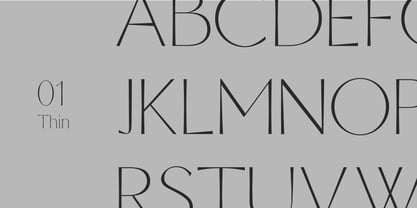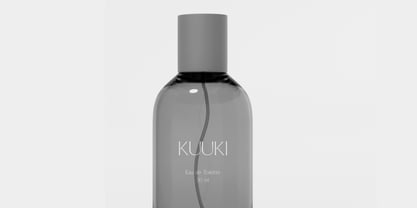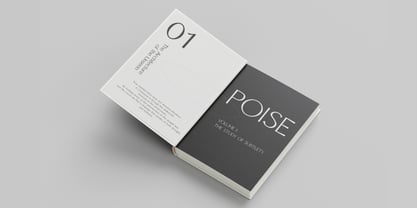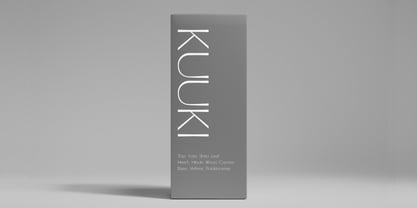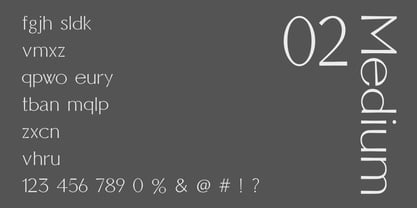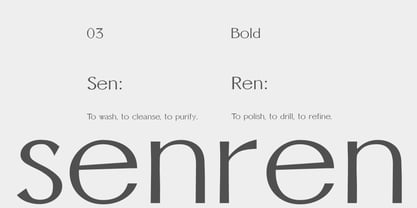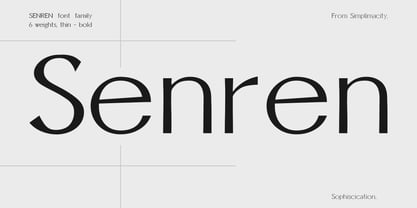
Senren
by KU Type
The Senren Font Family was designed by Yui Haynes and published by KU Type. Senren contains 6 styles and family package options. More about this family
Senren is a sophisticated and minimal typeface that expertly balances clarity with quiet elegance. Designed with a refined structure and carefully controlled proportions, it provides a calm yet confident presence in both print and digital applications. Rooted in a Japanese design sensibility, Senren embodies principles of restraint, balance, and intentional simplicity. The letterforms are clean and precise, featuring subtle detailing that reveals itself through use rather than mere decoration. Every curve and counterspace has been meticulously considered to create harmony in text settings while also delivering impact in display sizes. Senren excels in editorial design, branding, packaging, and refined identity systems. Its minimal character allows it to adapt seamlessly across various contexts while maintaining a distinct, polished voice. Sophisticated. Simple. Elegant. Minimal.
Designers: Yui Haynes
Current Foundry: KU Type